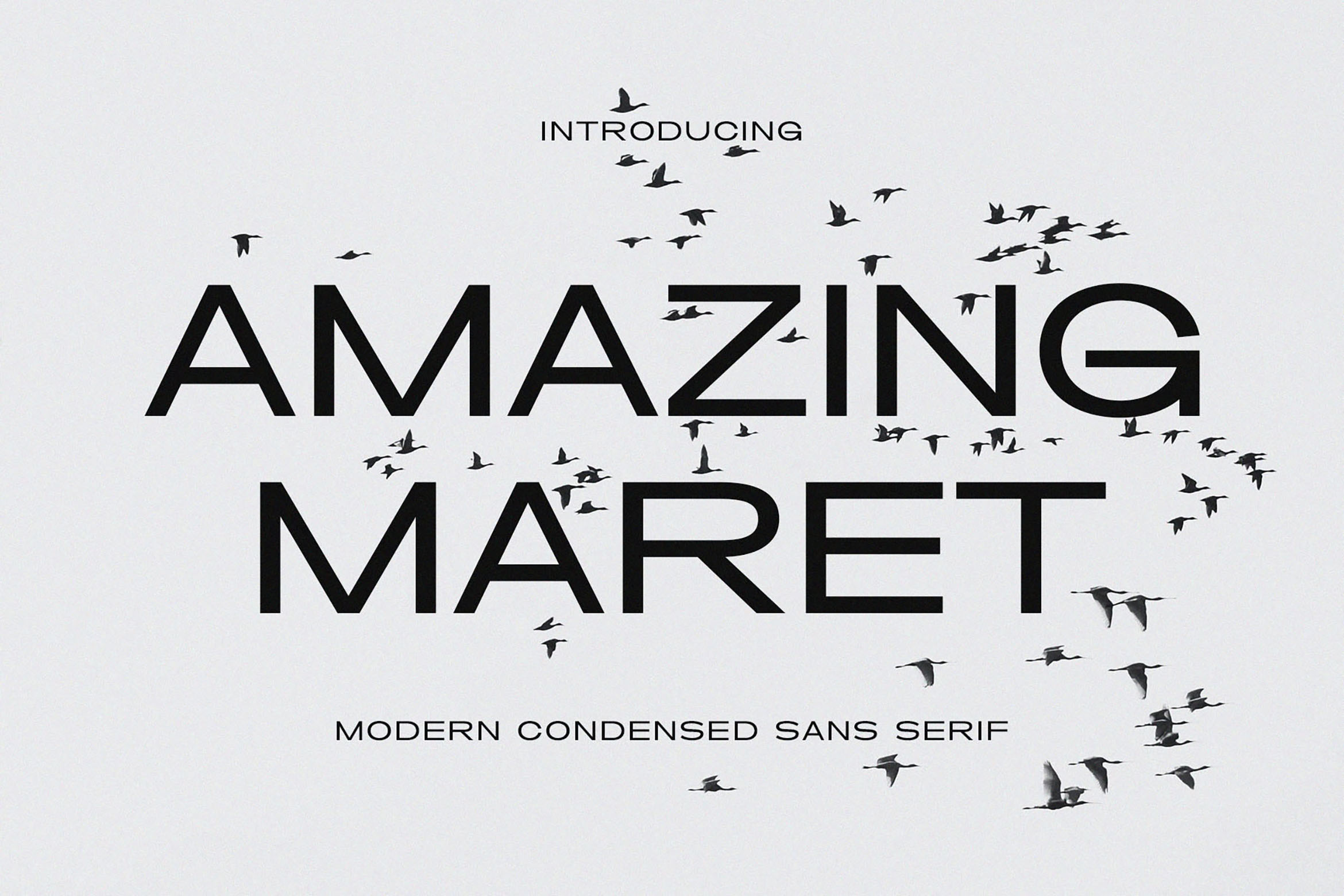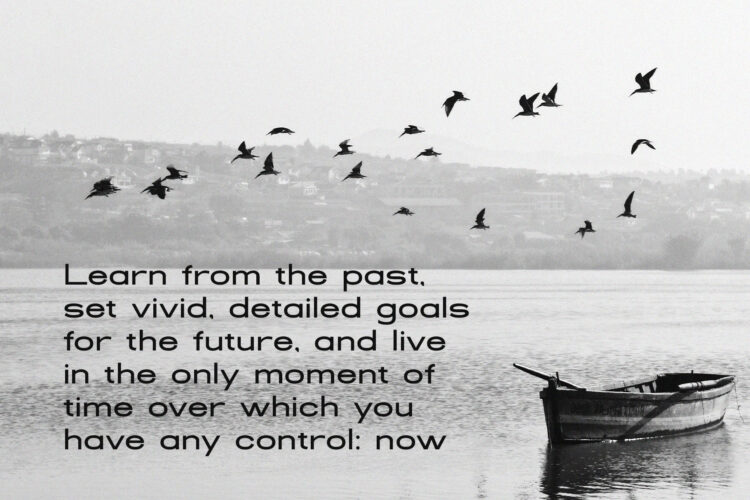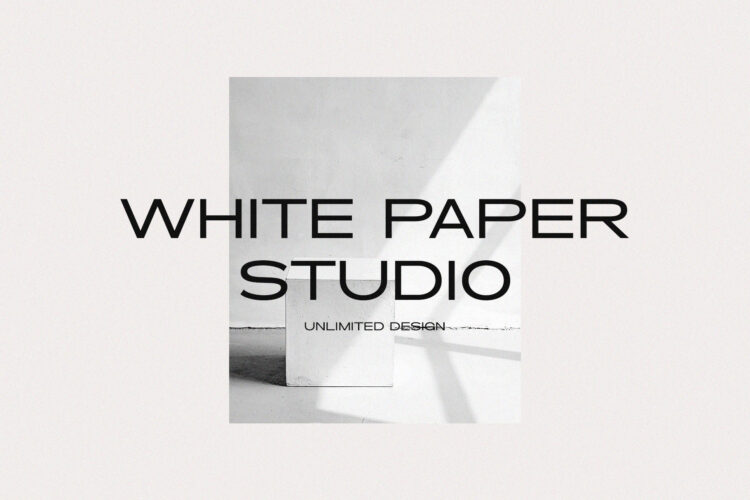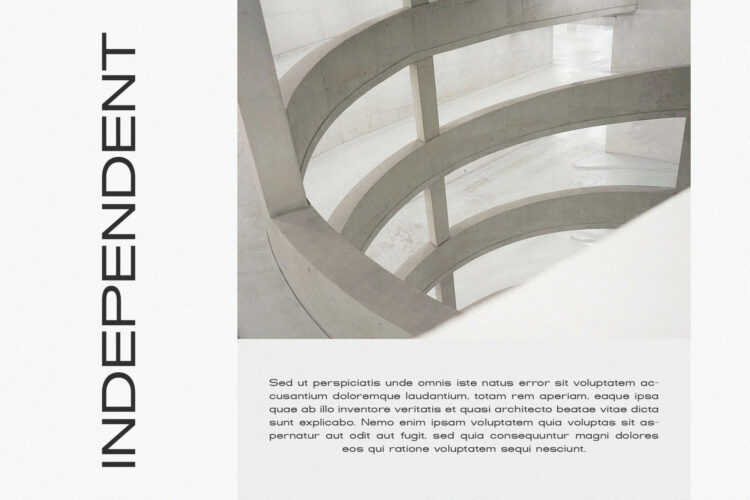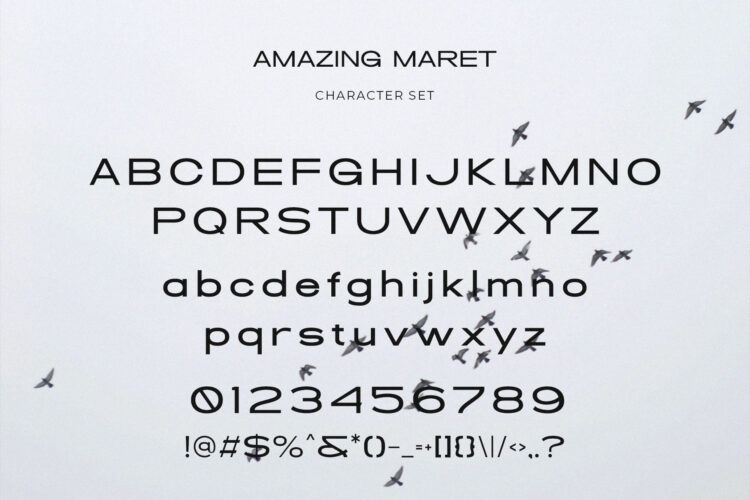
Introducing our new Amazing Maret, modern sans serif font with elegant style this is perfect for branding, logos, invitation, magazines, product packaging and more.
Amazing Maret – Modern Condensed Sans Serif